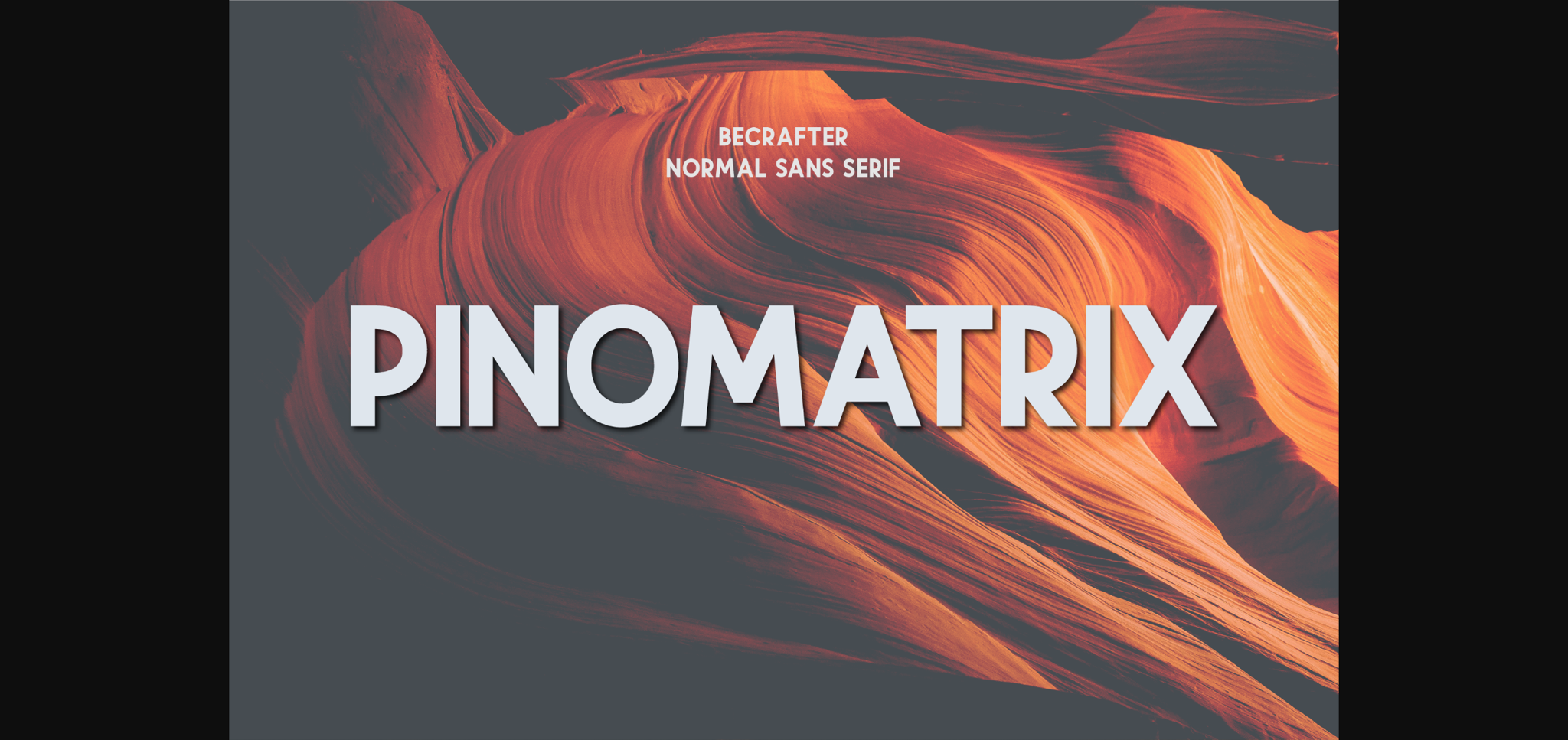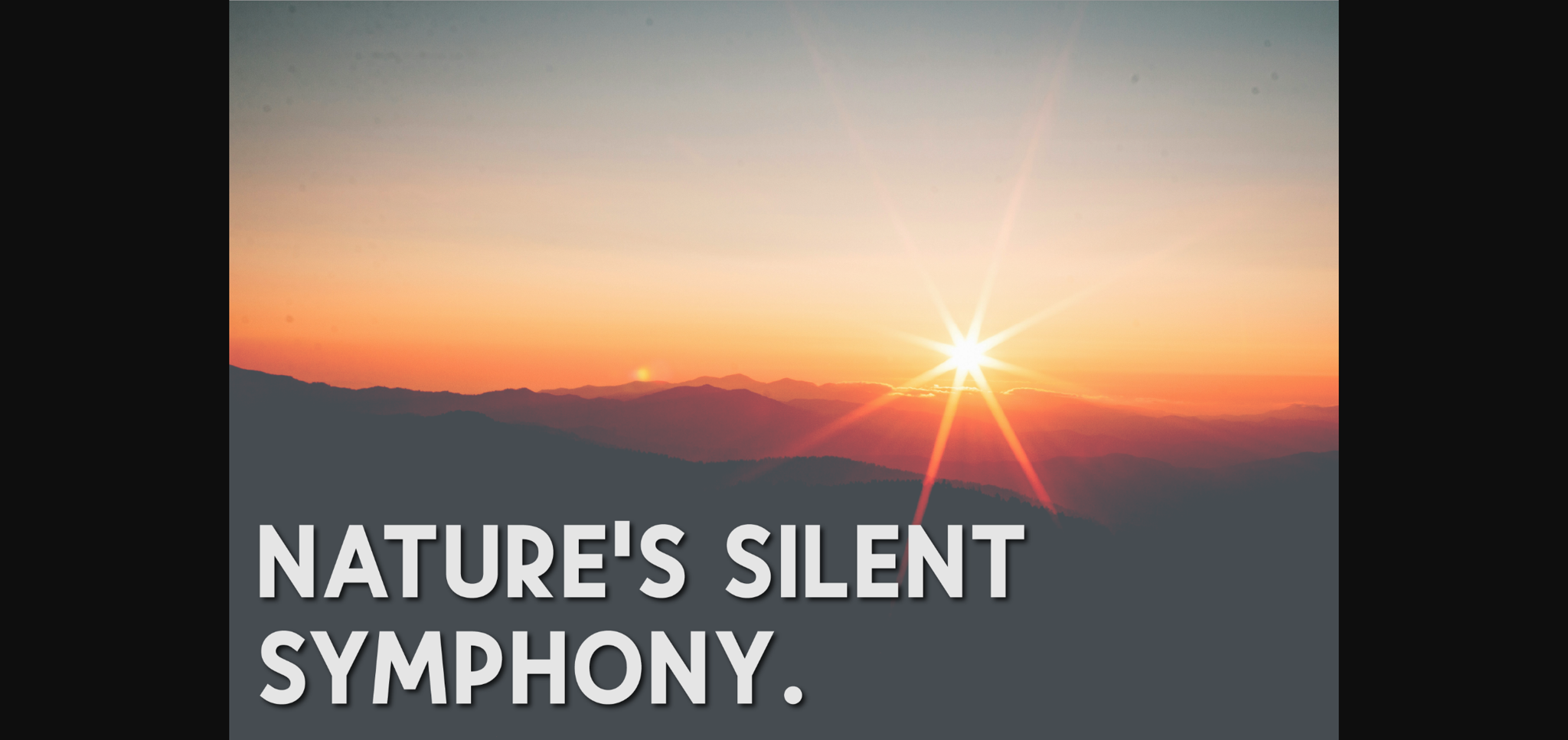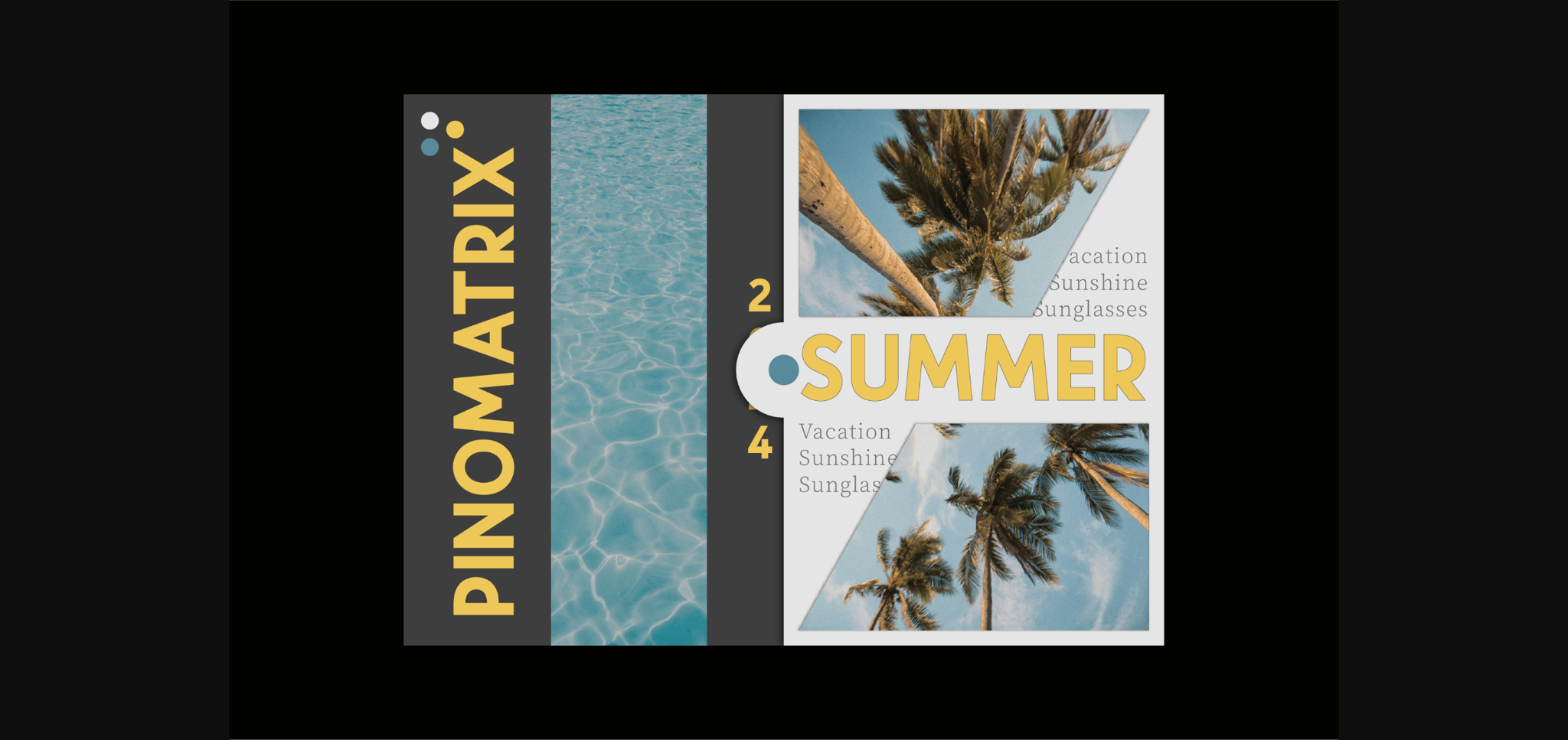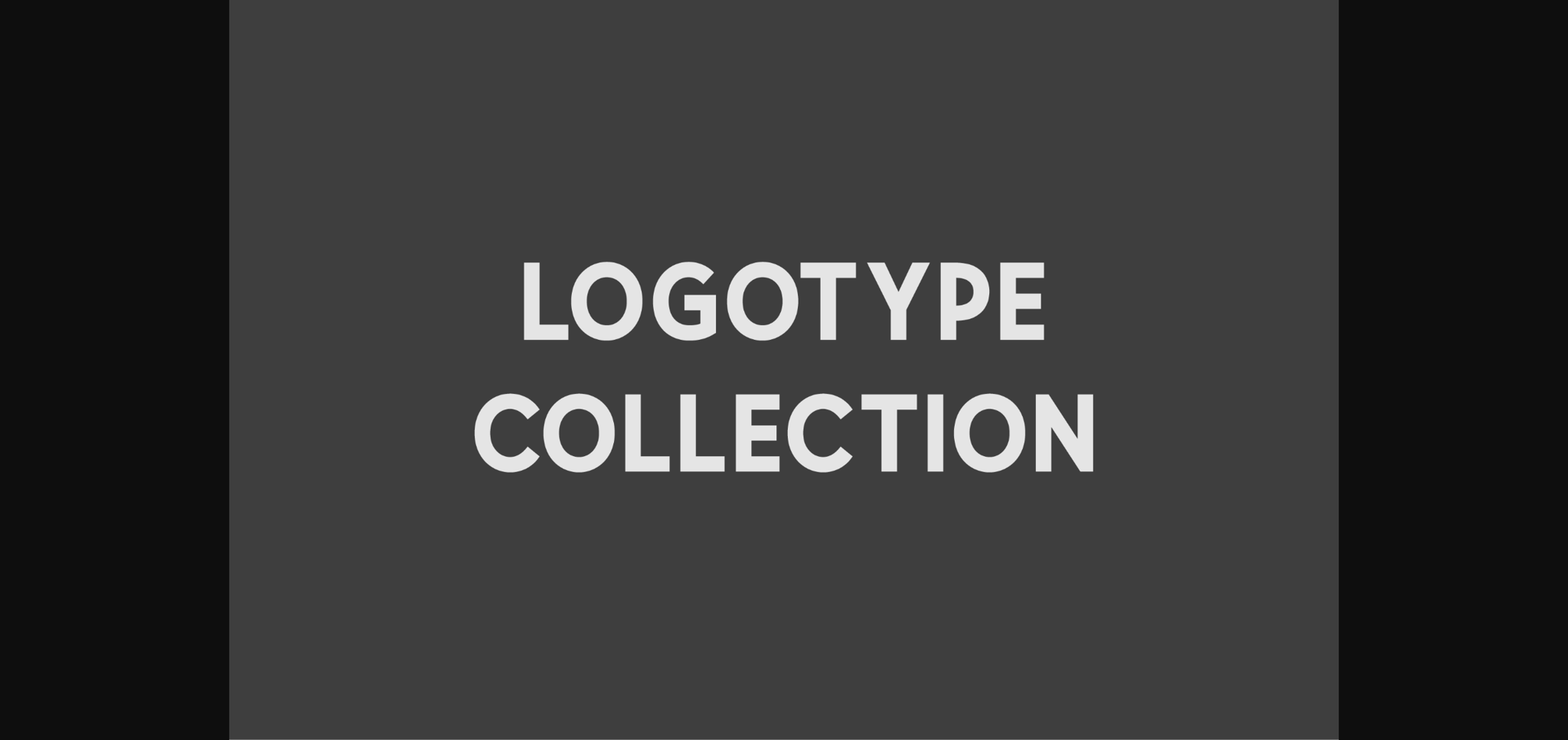
Pinomatrix Font
About Pinomatrix Font
Unleash the power of Pinomatrix, an awe-inspiring sans-serif font that boldly asserts itself with an air of confidence and class. Its stylish sharp-edge design is nothing short of elegant, making it a striking choice for any project seeking to make a potent impression. This intricately constructed typeface marries grace and strength, embodying a daring allure that’s impossible to ignore. Experience the stunning impact of Pinomatrix – where bold meets brilliance.